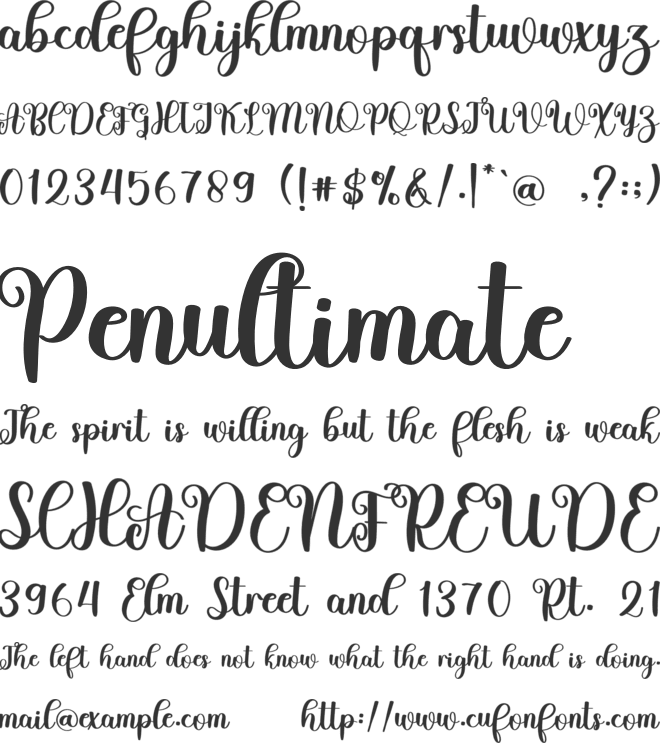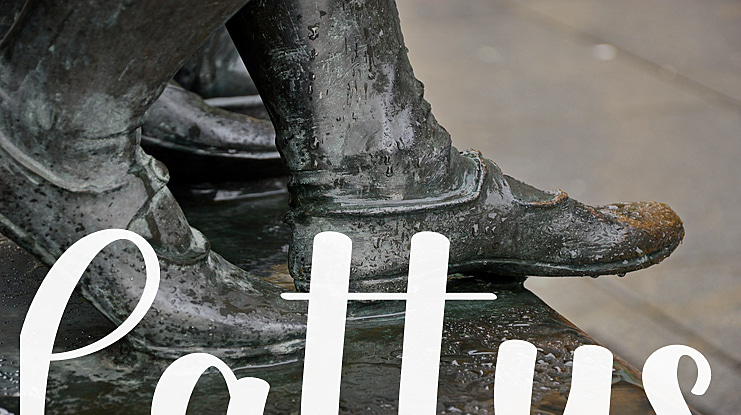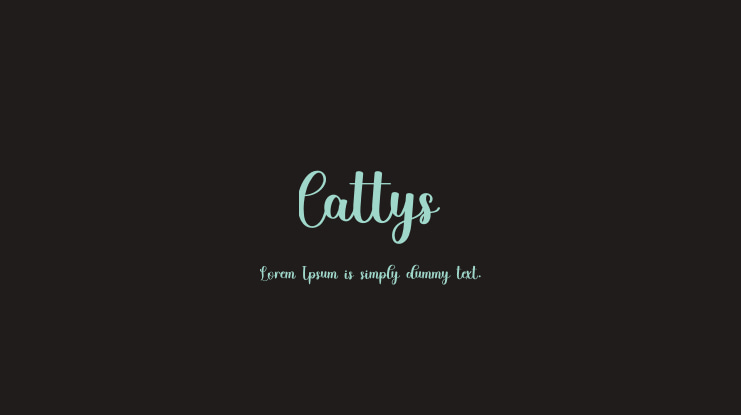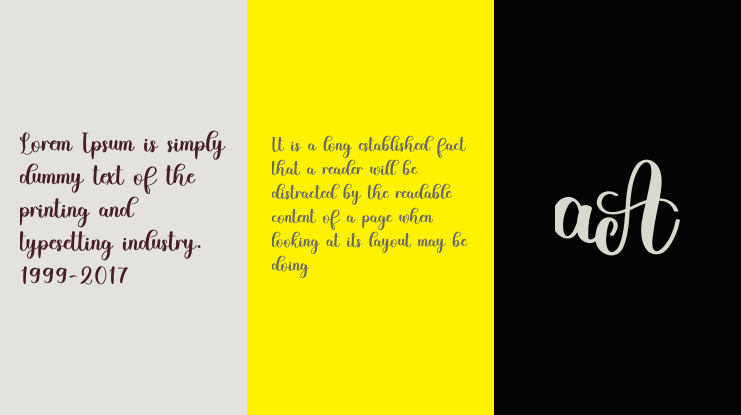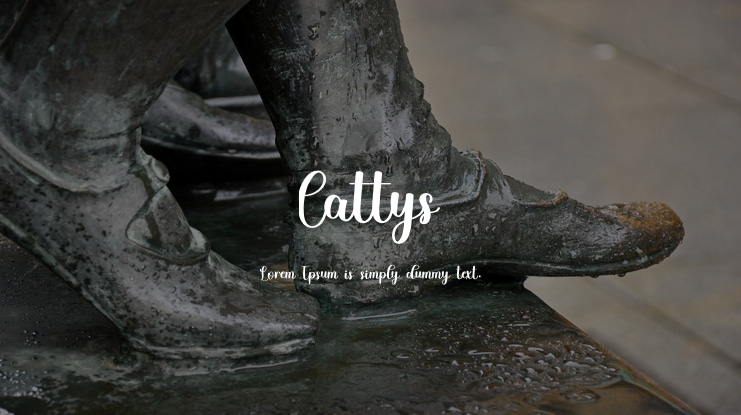
Cattys Font
This is a relaxed and beautiful paint brush handwritten font. It can be used for various purposes such as logos, wedding invitations, headings, t-shirts, letterhead, signage, labels, news, posters, badges and so much more.